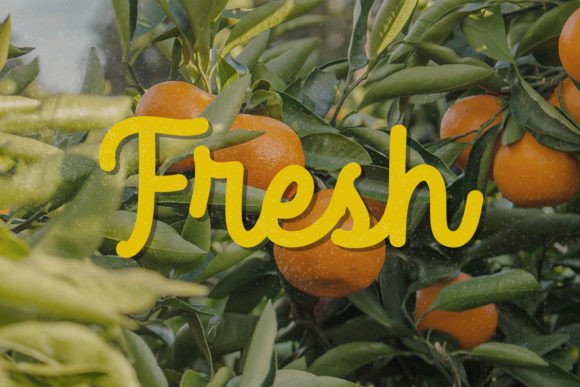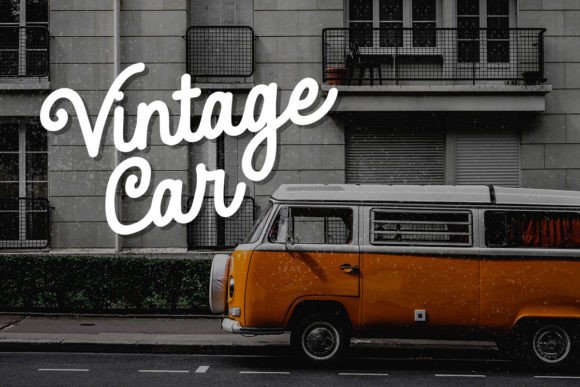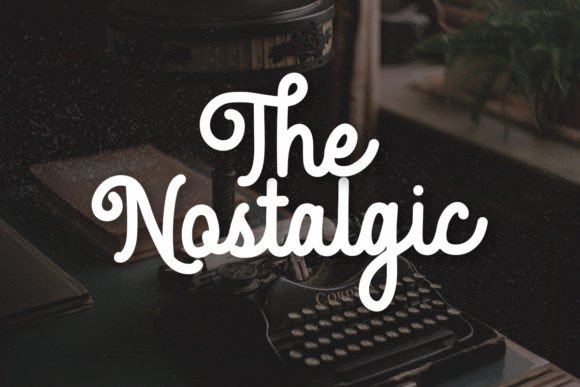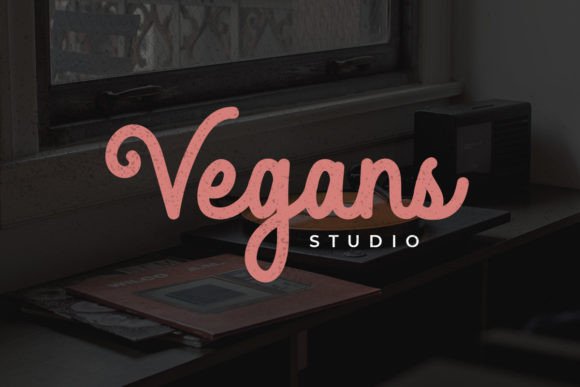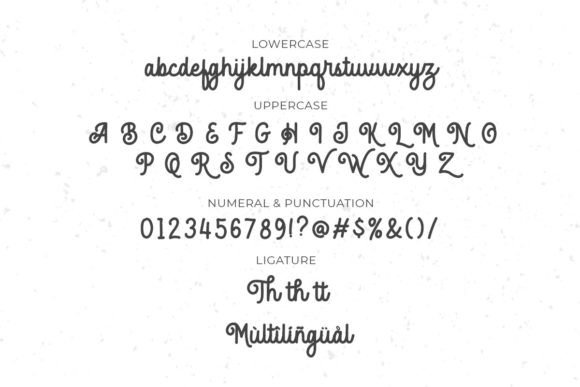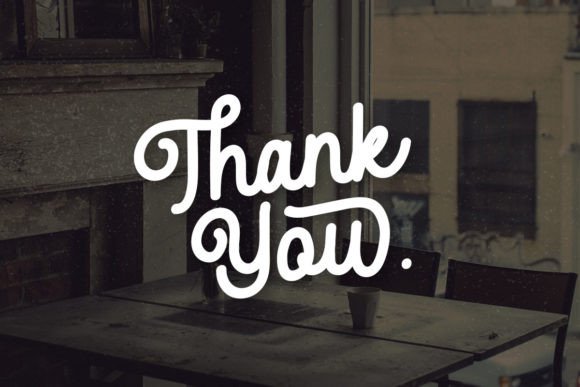
Introduction to Rethina Font
Rethina is a script monoline font with vintage looks.
It is perfect to create beautiful vintage typography on your any project This font perfectly made to be applied especially in logo, and the other various formal forms such as invitations, labels, logos, magazines, books, greeting / wedding cards, packaging, fashion, make up, stationery, novels, labels or any type of advertising purpose.